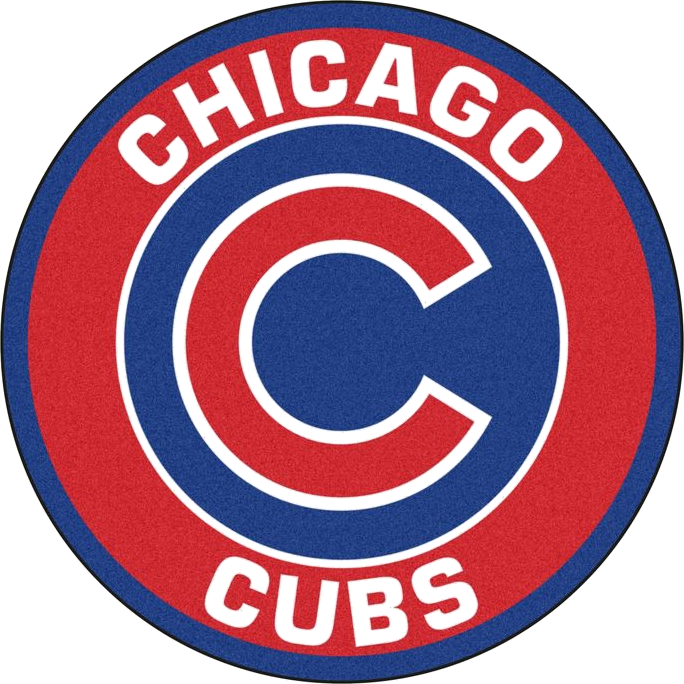
The letter “c is smaller and rounder yet inside of it is the word “ubs” which is slightly thicker.
18+ new customers casino font dafont only. The official colors of the chicago cubs are blue, red, white. Compared to the previous version, the latest chicago cubs logo looks more thicker and geometric.
I am thinking text and numbers may be different. I cannot tell you of the exact name of the font or style used for the lettering but i can send you to a site that pictures the different lettering, numbers, and logos used on cubs uniforms throughout the years. 100 free fonts alternatives to.
To find the names of the font used do a search for online companies that sell baseball uniforms, check out the charts they use for ordering the lettering, and compare them with the cubs. The mlb cubs font contains 73 beautifully designed characters. The cubs compete in major league baseball (mlb) as a member club of the national league (nl) central division.
The cubs are one of two major league teams in chicago, the other being the chicago white sox. Enter some text in the box below, then click the preview button. ️ customize your own preview on ffonts.net to make sure it`s the right one for your designs.